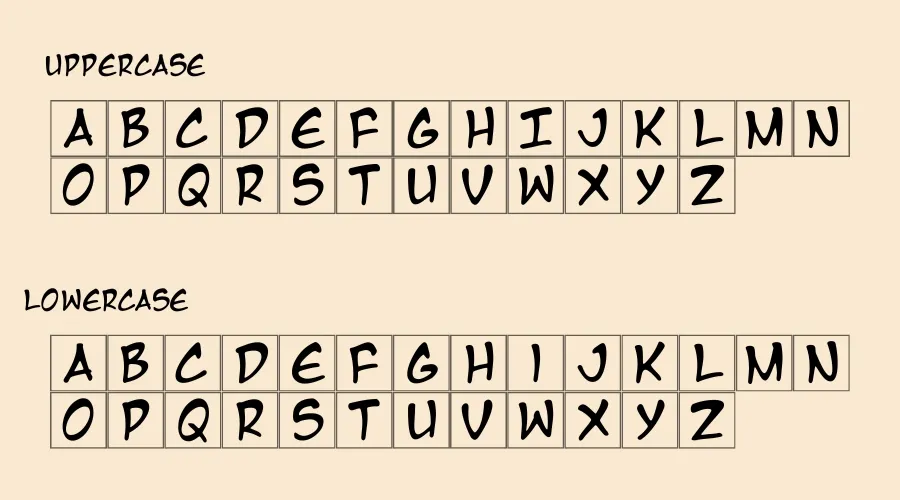
About Manga Temple Font
Blambot produced Manga Temple Font which is known as a comic fancy text style. The typeface family has beautiful styles. This typeface is made up of several unique glyphs. The free version can be found in this text style.
This family is utilized in many layouts due to its wide compatibility with several languages. Creative and contextual alternative alphabets are present in this typeface. It can be utilized with carnivalee freakshow font and create elegant designs. The typeface is ideal for making all your fun plans it is a lovely choice.